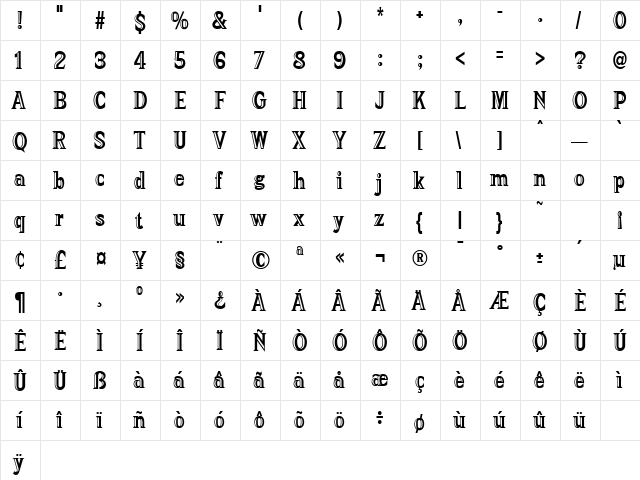
Anderson Regular
Design Context for Anderson Typeface
Anderson is a composed and adaptable typeface that performs quietly and consistently across a wide range of design contexts.